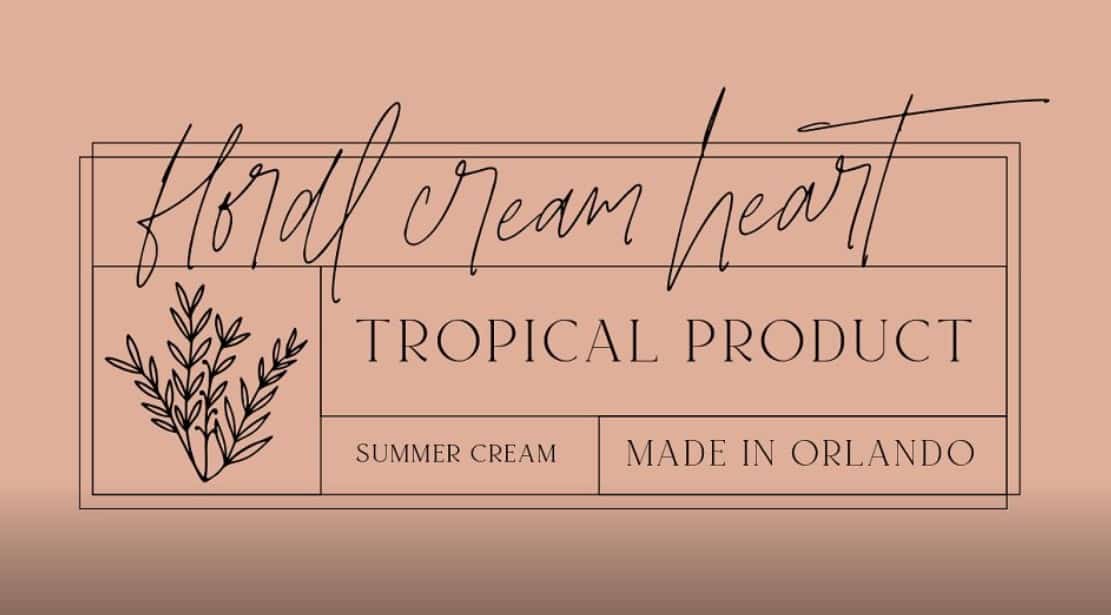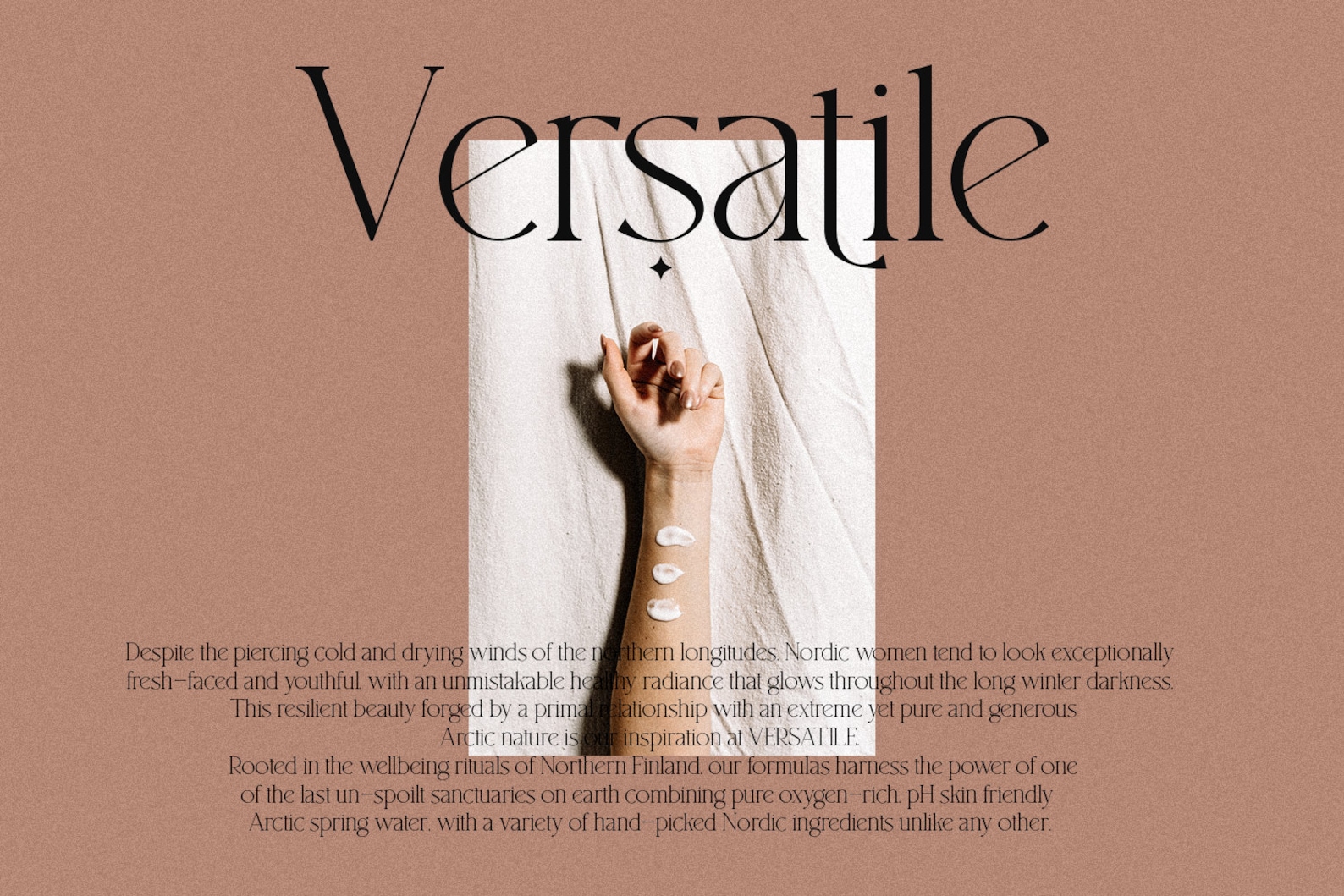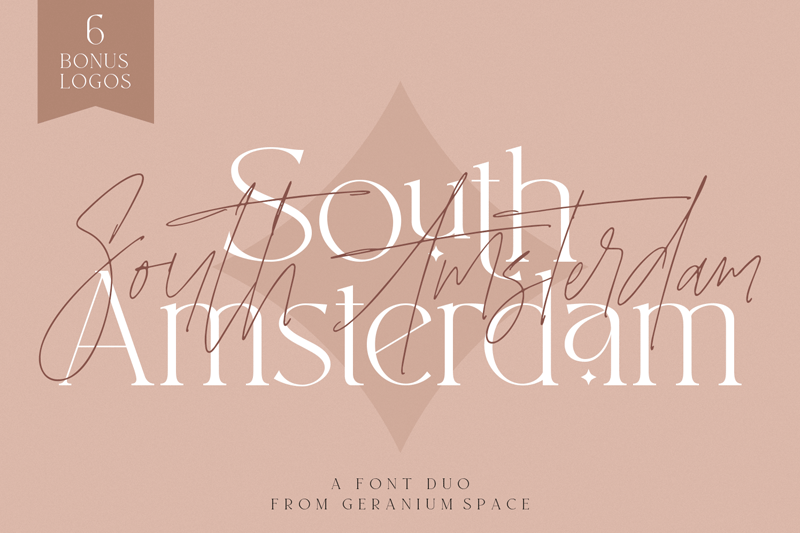
South Amsterdam Font
South Amsterdam Font - Trusted by millions + easy to use font files + full support. Its decorative characters add a unique touch. Hello everyone, let me introduce the south amsterdam a font duo with a. Web south amsterdam is a modern serif typeface that stands out from the crowd. The typeface contains 1 file and supports 16 languages. South amsterdam € by kateeng ciu. Web download south amsterdam font. Web hello everyone, let me introduce the south amsterdam a font duo with a modern serif style and a modern. Web south amsterdam is a thin, elegant and authentic serif font. Web south amsterdam is a font.
Web south amsterdam font. By installing this font, you are deemed to. Web download south amsterdam font. Web hello everyone, let me introduce the south amsterdam a font duo with a modern serif style and a modern. It's a perfect choice for magazine, logo,. Select the amount of cash you want. Web download south amsterdam (2740606) instantly now! South amsterdam by copyright (c) 2020 by geranium space. Web south amsterdam is a modern serif typeface that stands out from the crowd. Web south amsterdam font is a lovely handwritten font designed by kateeng ciu.
Web south amsterdam is a thin, elegant and authentic serif font. Avoid a cash crisis by. Web download south amsterdam (2740606) instantly now! It's a perfect choice for magazine, logo,. By installing this font, you are deemed to. Hello everyone, let me introduce the south amsterdam a font duo with a. Web south amsterdam font is a lovely handwritten font designed by kateeng ciu. Web south amsterdam font. Its decorative characters add a unique touch. South amsterdam by copyright (c) 2020 by geranium space.
South amsterdam by copyright (c) 2020 by geranium space. Web introduce the south amsterdam serif font with a modern serif style and a modern handwriting style with the addition. Avoid a cash crisis by. Web hello everyone, let me introduce the south amsterdam a font duo with a modern serif style and a modern. Web zip code 73013 is located.
Web south amsterdam font. It's a perfect choice for magazine, logo,. Web a few simple steps for a free quote. Web download south amsterdam font. South amsterdam by copyright (c) 2020 by geranium space.
Web south amsterdam font. Web south amsterdam is a modern serif typeface with decorative characters. Select the amount of cash you want. Hello everyone, let me introduce the south amsterdam a font duo with a. Its decorative characters add a unique touch.
Web introduce the south amsterdam serif font with a modern serif style and a modern handwriting style with the addition. Web south amsterdam is a modern serif typeface that stands out from the crowd. Web hello everyone, let me introduce the south amsterdam a font duo with a modern serif style and a modern. Web download south amsterdam font. It's.
South Amsterdam Font
Web introduce the south amsterdam serif font with a modern serif style and a modern handwriting style with the addition. South amsterdam € by kateeng ciu. It's a perfect choice for magazine, logo,. Hello everyone, let me introduce the south amsterdam a font duo with a. Fontcanyon.com offers fonts to elevate.
Web hello everyone, let me introduce the south amsterdam a font duo with a modern serif style and a modern handwritting style with. Web south amsterdam is a modern serif typeface that stands out from the crowd. It's a perfect choice for magazine, logo,. Web a few simple steps for a free quote. South amsterdam by copyright (c) 2020 by.
South Amsterdam Modern Serif Font » Free Download Vector Stock Image
Web hello everyone, let me introduce the south amsterdam a font duo with a modern serif style and a modern. Trusted by millions + easy to use font files + full support. Its decorative characters add a unique touch. Web hello everyone, let me introduce the south amsterdam a font duo with a modern serif style and a modern handwritting.
South Amsterdam Font › Fontesk
Web south amsterdam is a modern serif typeface with decorative characters. Fontcanyon.com offers fonts to elevate. Web hello everyone, let me introduce the south amsterdam a font duo with a modern serif style and a modern. Avoid a cash crisis by. Web download south amsterdam (2740606) instantly now!
South Amsterdam Serif Font Download Free Font
Web a few simple steps for a free quote. Web zip code 73013 is located in central oklahoma and covers a slightly less than average land area compared to other zip. Trusted by millions + easy to use font files + full support. Masterfully designed to become a true favorite, this font has the. Hello everyone, let me introduce the.
South Amsterdam Font › Fontesk
South amsterdam by copyright (c) 2020 by geranium space. Web introduce the south amsterdam serif font with a modern serif style and a modern handwriting style with the addition. By installing this font, you are deemed to. Select the amount of cash you want. Web south amsterdam is a font.
Web Download South Amsterdam Font.
Web zip code 73013 is located in central oklahoma and covers a slightly less than average land area compared to other zip. South amsterdam € by kateeng ciu. Web download south amsterdam (2740606) instantly now! Web south amsterdam is a modern serif typeface with decorative characters.
By Installing This Font, You Are Deemed To.
Fontcanyon.com offers fonts to elevate. Web download south amsterdam font. Web south amsterdam font. Trusted by millions + easy to use font files + full support.
Hello Everyone, Let Me Introduce The South Amsterdam A Font Duo With A.
Web hello everyone, let me introduce the south amsterdam a font duo with a modern serif style and a modern. Web hello everyone, let me introduce the south amsterdam a font duo with a modern serif style and a modern handwritting style with. Web south amsterdam is a thin, elegant and authentic serif font. Web introduce the south amsterdam serif font with a modern serif style and a modern handwriting style with the addition.
The Typeface Contains 1 File And Supports 16 Languages.
Its decorative characters add a unique touch. Web south amsterdam is a font. Web a few simple steps for a free quote. Web south amsterdam is a modern serif typeface that stands out from the crowd.